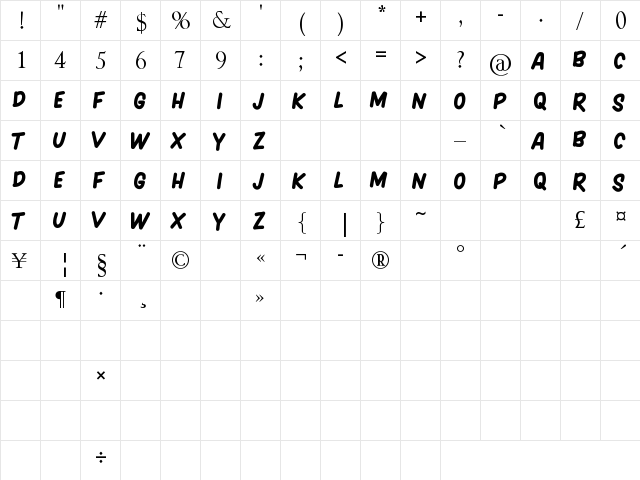
HARGENA Regular Font Preview
HARGENA Regular
HARGENA Regular Font Details
Design Context for HARGENA Typeface
HARGENA is a composed and adaptable typeface that performs quietly and consistently across a wide range of design contexts.